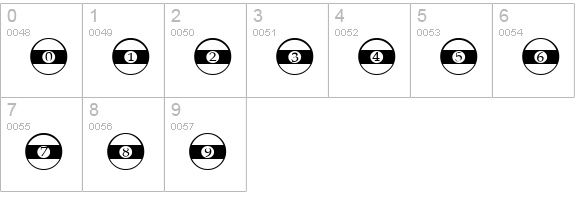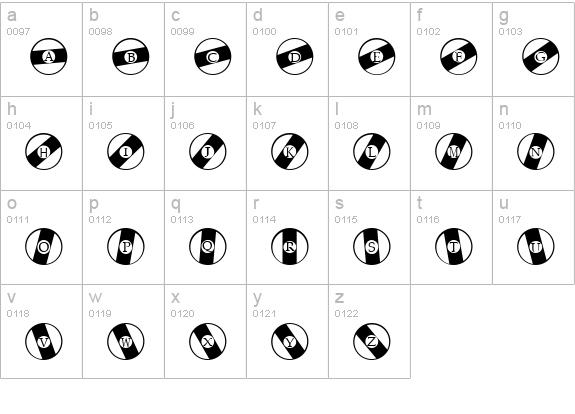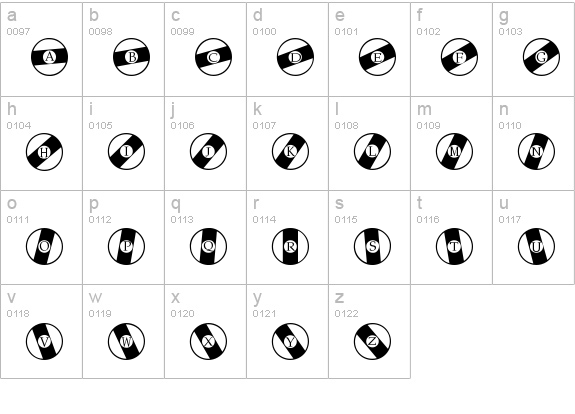
FZ BORDERS 21 Font Details
FZ BORDERS 21 font is a unique and versatile typeface that will add a touch of creativity to your design projects. With its intricate borders and decorative elements, this font is perfect for adding a stylish and artistic flair to your work. Whether you're designing invitations, posters, or social media graphics, FZ BORDERS 21 font will help your designs stand out. The best part is that FZ BORDERS 21 font is available for free download at FontsMarket.com. You can easily access this font and start using it in your projects right away. Don't miss out on this fantastic opportunity to enhance your designs with the beautiful FZ BORDERS 21 font. Download it now and let your creativity shine!